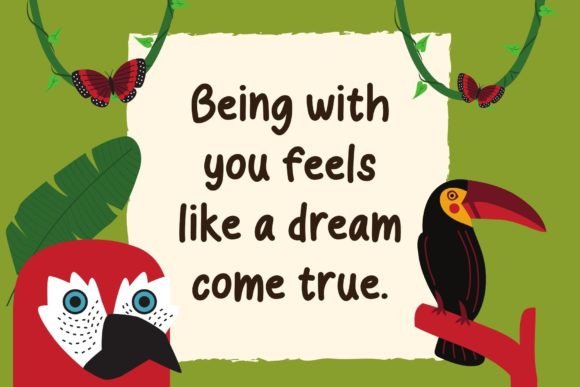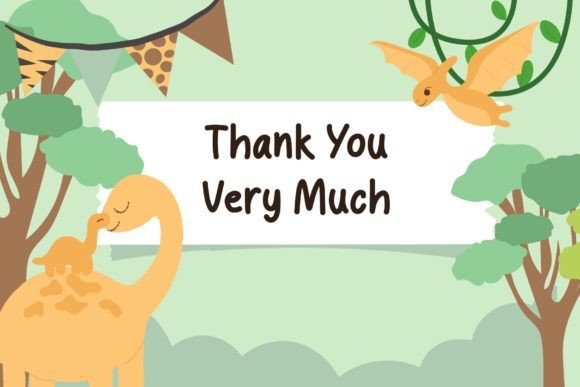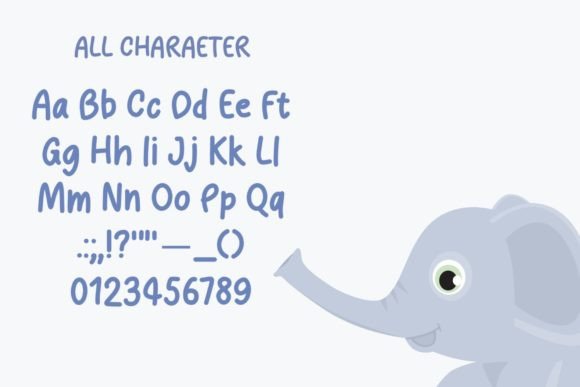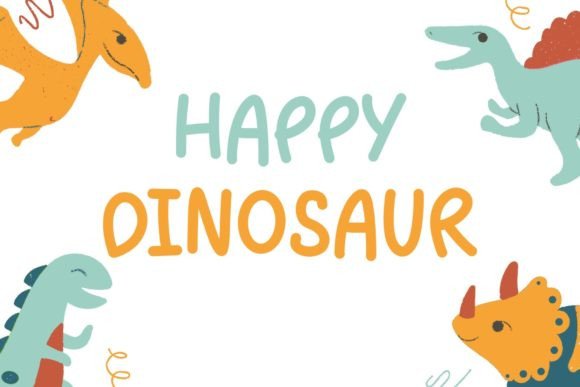
Unleash Your Creativity with the Happy Dinosaur Font
Get ready to embark on a prehistoric adventure with the Happy Dinosaur font! This playful and vibrant typeface is perfect for adding a touch of joy and excitement to your designs. With its cheerful and energetic letterforms, the Happy Dinosaur font brings the world of dinosaurs to life.
A Font that’s Roaring with Personality
The Happy Dinosaur font is a one-of-a-kind typeface that’s sure to make your content stand out. Its unique and playful design makes it perfect for a variety of creative projects, from invitations and educational materials to social media posts and more. Whether you’re a designer, crafter, or simply someone who loves dinosaurs, this font is sure to delight.
Perfect for Dinosaur-Themed Projects
Are you planning a dinosaur-themed birthday party? The Happy Dinosaur font is the perfect choice for creating invitations, decorations, and other party materials. Its cheerful and energetic letterforms will set the tone for a fun and exciting celebration that’s sure to delight kids and adults alike.
Here are just a few ideas for using the Happy Dinosaur font in your dinosaur-themed projects:
- Create custom invitations that will get your guests excited for the party
- Design fun and educational materials, such as dinosaur fact sheets and coloring pages
- Add a playful touch to your party decorations, such as banners and signs
Bringing Learning to Life
The Happy Dinosaur font is also perfect for educational materials, such as textbooks, workbooks, and activity sheets. Its playful and engaging design makes learning fun and accessible for kids, and its energetic letterforms are sure to capture their attention.
Here are just a few ideas for using the Happy Dinosaur font in your educational materials:
- Create custom worksheets and activity sheets that will make learning fun and engaging
- Design educational posters and charts that will help kids learn about different types of dinosaurs
- Develop interactive educational materials, such as games and quizzes, that will keep kids engaged and motivated
Adding a Fun Twist to Social Media
The Happy Dinosaur font is also perfect for adding a fun twist to your social media posts. Whether you’re a business, organization, or simply an individual who loves dinosaurs, this font is sure to make your content stand out.
Here are just a few ideas for using the Happy Dinosaur font in your social media posts:
- Create eye-catching graphics and animations that will grab the attention of your followers
- Design fun and engaging social media posts, such as quizzes and games, that will encourage interaction and engagement
- Add a playful touch to your social media stories and posts with custom graphics and text overlays
Key Features of the Happy Dinosaur Font
The Happy Dinosaur font comes with a range of key features that make it perfect for a variety of creative projects. Here are just a few of the key features that make this font so special:
- Playful and vibrant design that’s perfect for adding a touch of joy and excitement to your designs
- Cheerful and energetic letterforms that bring the world of dinosaurs to life
- Unique and one-of-a-kind design that’s sure to make your content stand out
- Perfect for a variety of creative projects, from invitations and educational materials to social media posts and more
| Font Name | Happy Dinosaur Font |
| Author | MyFontsShop |
The Happy Dinosaur font is a playful and vibrant typeface that’s perfect for adding a touch of joy and excitement to your designs. With its cheerful and energetic letterforms, this font brings the world of dinosaurs to life and is sure to make your content stand out. Whether you’re a designer, crafter, or simply someone who loves dinosaurs, this font is sure to delight. So why wait? Download the Happy Dinosaur font today and start creating your own prehistoric adventures!